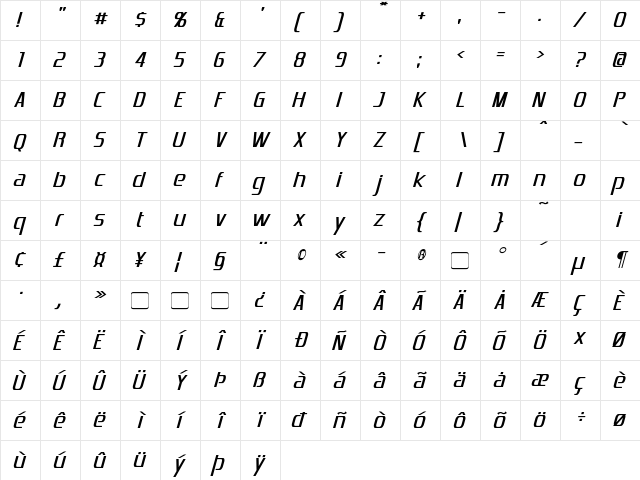
Emotion Engine Italic
| Foundry | Neale Davidson |
| Designer | Neale Davidson |
Design Context for Emotion Engine Typeface
Emotion Engine is a composed and adaptable typeface that performs quietly and consistently across a wide range of design contexts. Its italic angle brings a sense of urgency and motion to the letterforms.
Pro Tip: Try Emotion Engine for annotation and caption copy alongside an upright companion — the contrast in angle creates a dynamic but ordered typographic system.